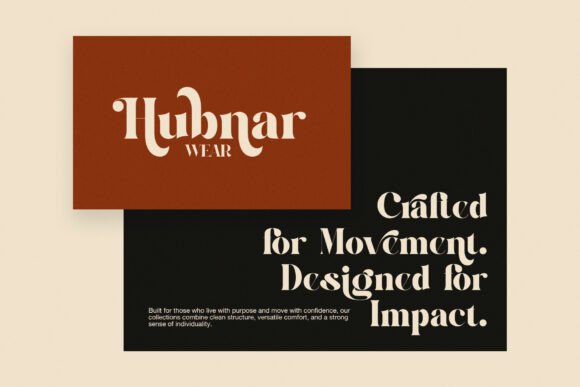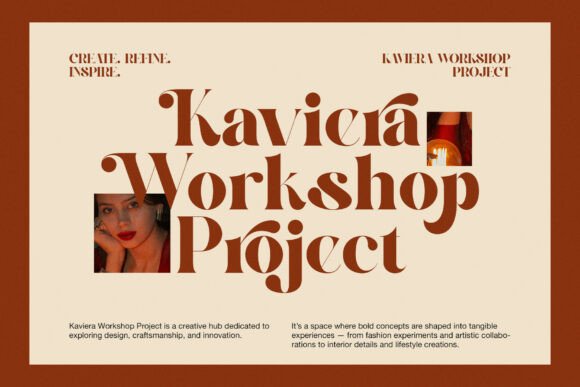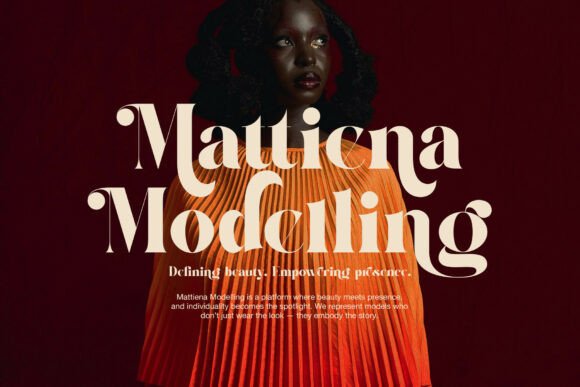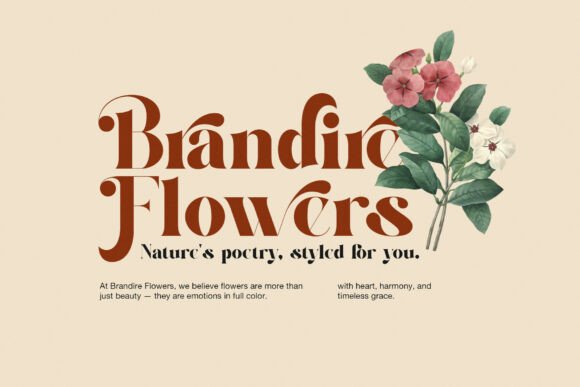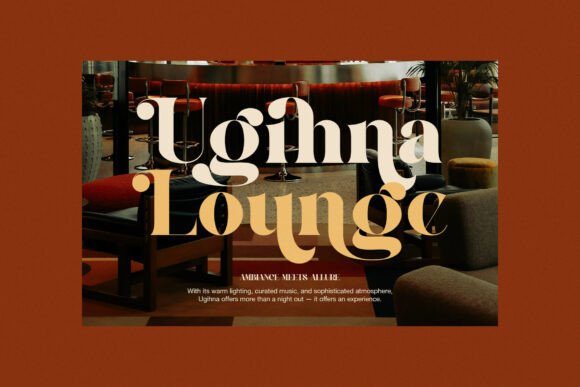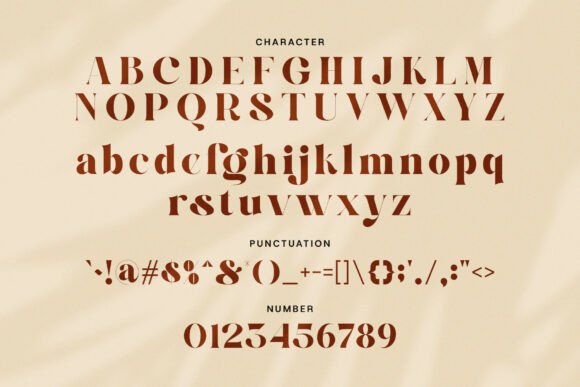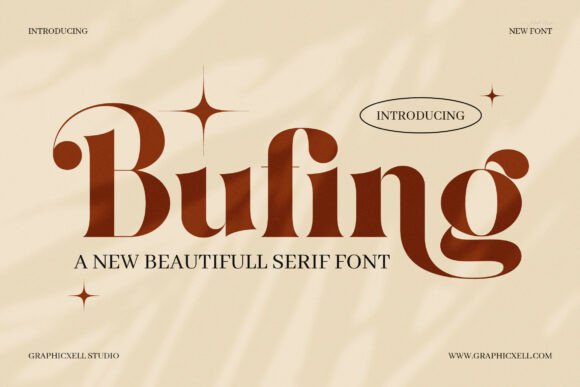
The Designer’s Delight: Exploring the Timeless Charm of Bufing Serif Font
I’ll never forget the struggle I faced while working on a branding project for a fashion client. The goal was to create a logo that exuded elegance, sophistication, and a touch of vintage charm. As I scrolled through my font library, I stumbled upon Bufing Serif, and it was love at first sight! ✨ The classic serif style, combined with its clean and easy-to-read letters, made it an instant contender for the project. In this article, I’ll share my experience with Bufing Serif, its features, and why it’s an excellent choice for designers, crafters, and creative hobbyists.
An Honest Review of Bufing Serif
- ✅ Classic serif style with a vintage feel that adds warmth and friendliness to designs
- ✅ Easy to read in print and on screens, making it versatile for various applications
- ✅ Comes in multiple weights and styles, allowing for flexibility in design
- ✅ Great for logos, branding, and packaging, as well as headlines, titles, and body text
While Bufing Serif is an excellent font, there are a few minor considerations to keep in mind:
- ⚠️ Some users might find the sharp serif edges too prominent for certain design applications
- 🤔 The font’s classic style might not be suitable for extremely modern or minimalist designs
The Designer Inspiration Behind Bufing Serif
Bufing Serif was inspired by the classic typography of the 19th century. Its creator aimed to craft a font that would evoke a sense of nostalgia and sophistication, while remaining highly legible and versatile. The result is a timeless font that works beautifully in a wide range of design applications.
Q: What makes Bufing Serif suitable for fashion brands?
A: Bufing Serif’s classic, elegant style and vintage charm make it an excellent choice for fashion brands looking to convey sophistication and luxury.
Q: Can I use Bufing Serif for body text?
A: Yes, Bufing Serif is highly legible and suitable for body text, making it a great choice for long-form content, articles, and editorials.
Q: Is Bufing Serif available in multiple weights and styles?
A: Yes, Bufing Serif comes in multiple weights and styles, allowing designers to use it for a wide range of applications, from headlines to body text.
Q: Can I use Bufing Serif for digital applications?
A: Absolutely! Bufing Serif is optimized for both print and digital use, making it a versatile choice for designers working on websites, mobile apps, and other digital projects.